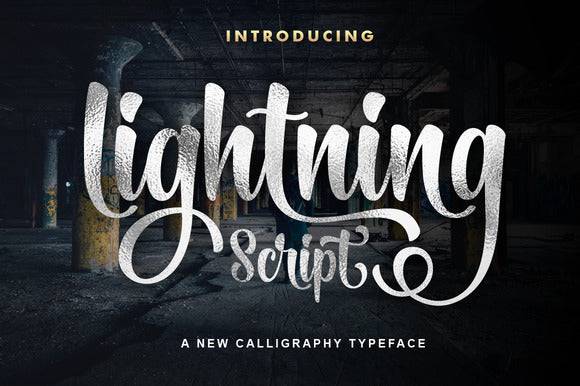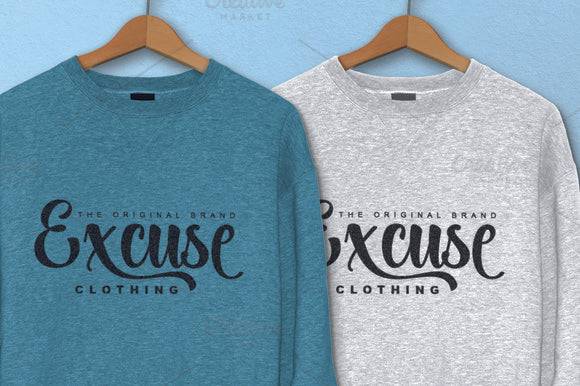
Lightning Script Font
Lightning Script is a high-impact script font designed with bold, energetic strokes and a lightning-inspired flair. This hand-lettered typeface blends a modern brush style with edgy personality, making it perfect for branding, social media graphics, and standout product designs. The font includes standard characters and punctuation, ensuring compatibility across various platforms.
- Logos and branding kits
- T-shirts and hoodies
- Stickers and decals
- Social media quote graphics
- Product packaging and labels
- Includes uppercase, lowercase, numbers, basic punctuation
- Modern brush script with an edgy twist
- Perfect for bold, energetic branding